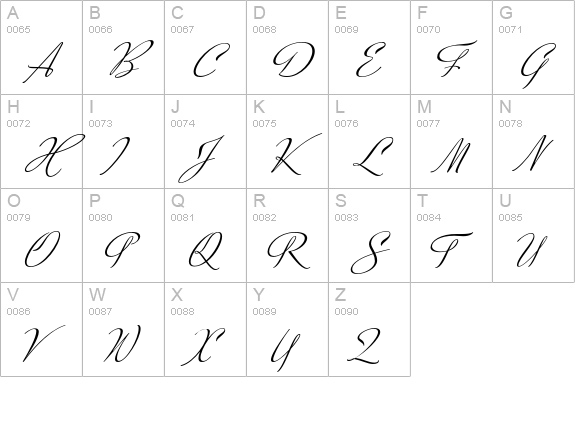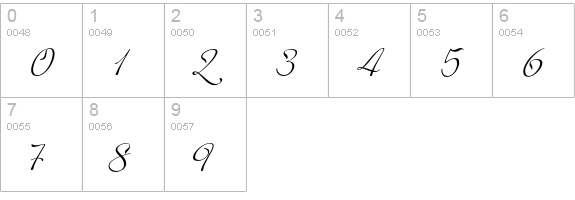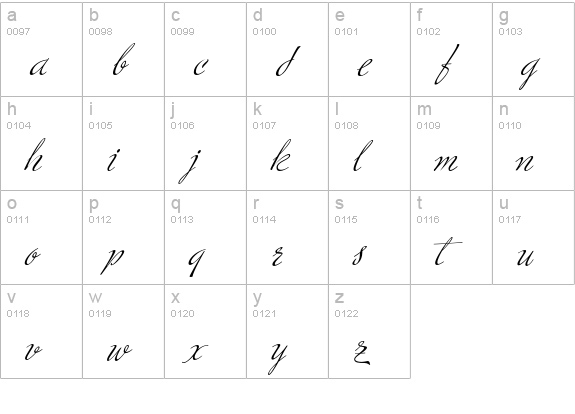
Ministry Script is a stunning and elegant font that exudes sophistication and charm. With its delicate curves and graceful flourishes, this script font is perfect for adding a touch of luxury to any design project. Whether you're creating wedding invitations, branding materials, or elegant packaging, Ministry Script will elevate your work to the next level. The best part about Ministry Script is that it is available for free download at FontsMarket.com. This means that you can access this beautiful font without any cost, making it an excellent choice for designers on a budget. Don't miss out on the opportunity to add Ministry Script to your font collection and bring a touch of elegance to your projects. Download it today and start creating stunning designs with this exquisite font.